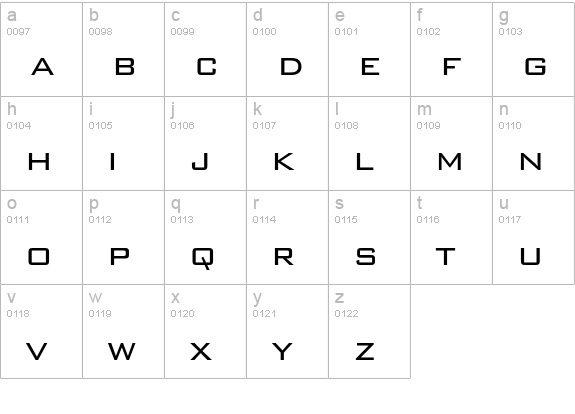
Bank Gothic Light is a refined, elegant variant in the Bank typeface family \xE2\x80\x94 well suited to elegant body text, refined sub-headings, and luxury branding.
Bank Gothic Light is a sleek and modern sans-serif font that exudes a sense of professionalism and sophistication. With its clean lines and sharp edges, this font is perfect for a wide range of design projects, from logos to website headers to print materials. The light weight of the font adds a touch of elegance and refinement to any text. What sets Bank Gothic Light apart is that it is available for free download at FontsMarket.com. This means that you can easily access this stylish font without any cost, making it a valuable asset for designers and creatives looking to elevate their projects with a touch of contemporary flair. Whether you're designing a sleek corporate identity or crafting a minimalist poster, Bank Gothic Light is sure to make a statement. Download it today and enhance your design toolbox with this versatile and eye-catching typeface.